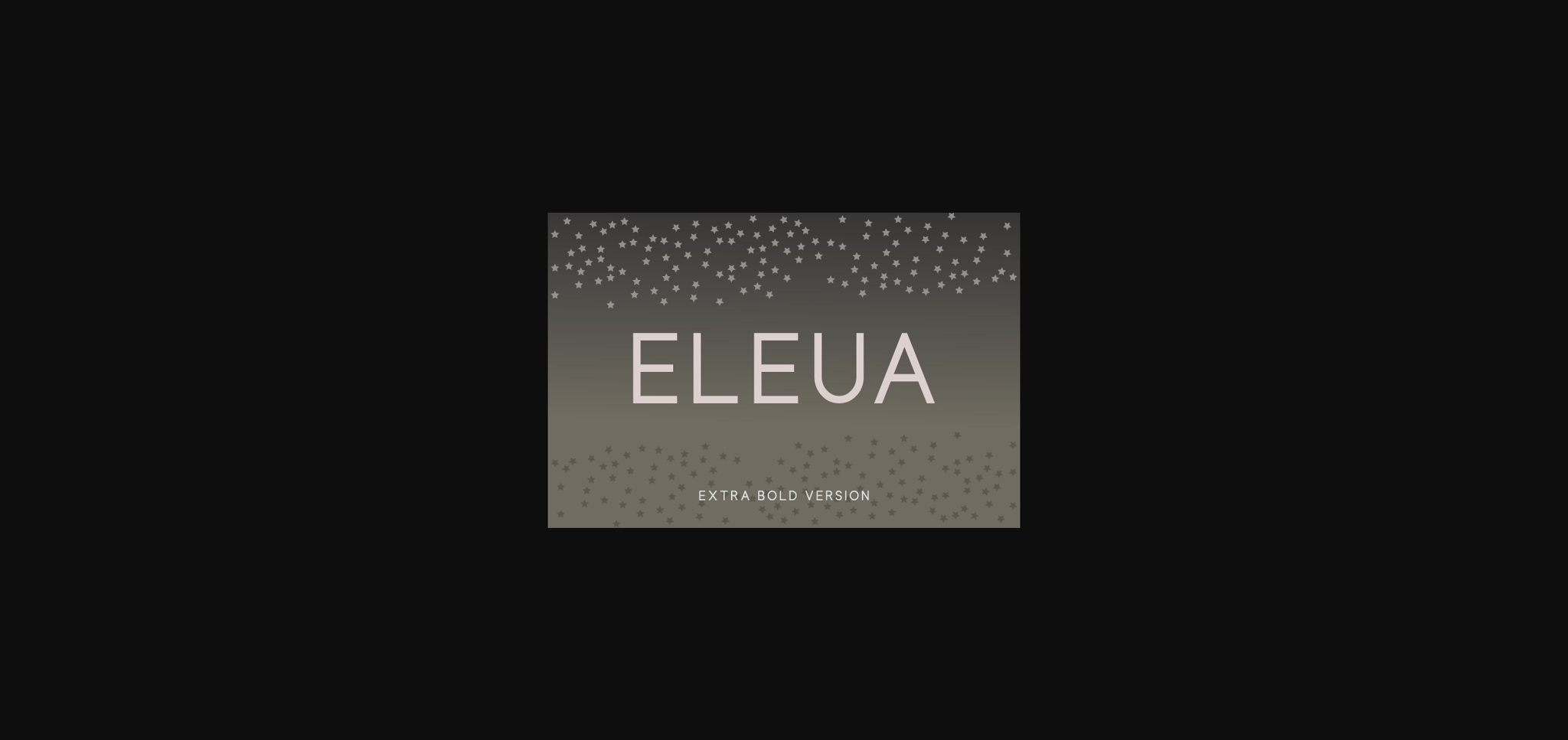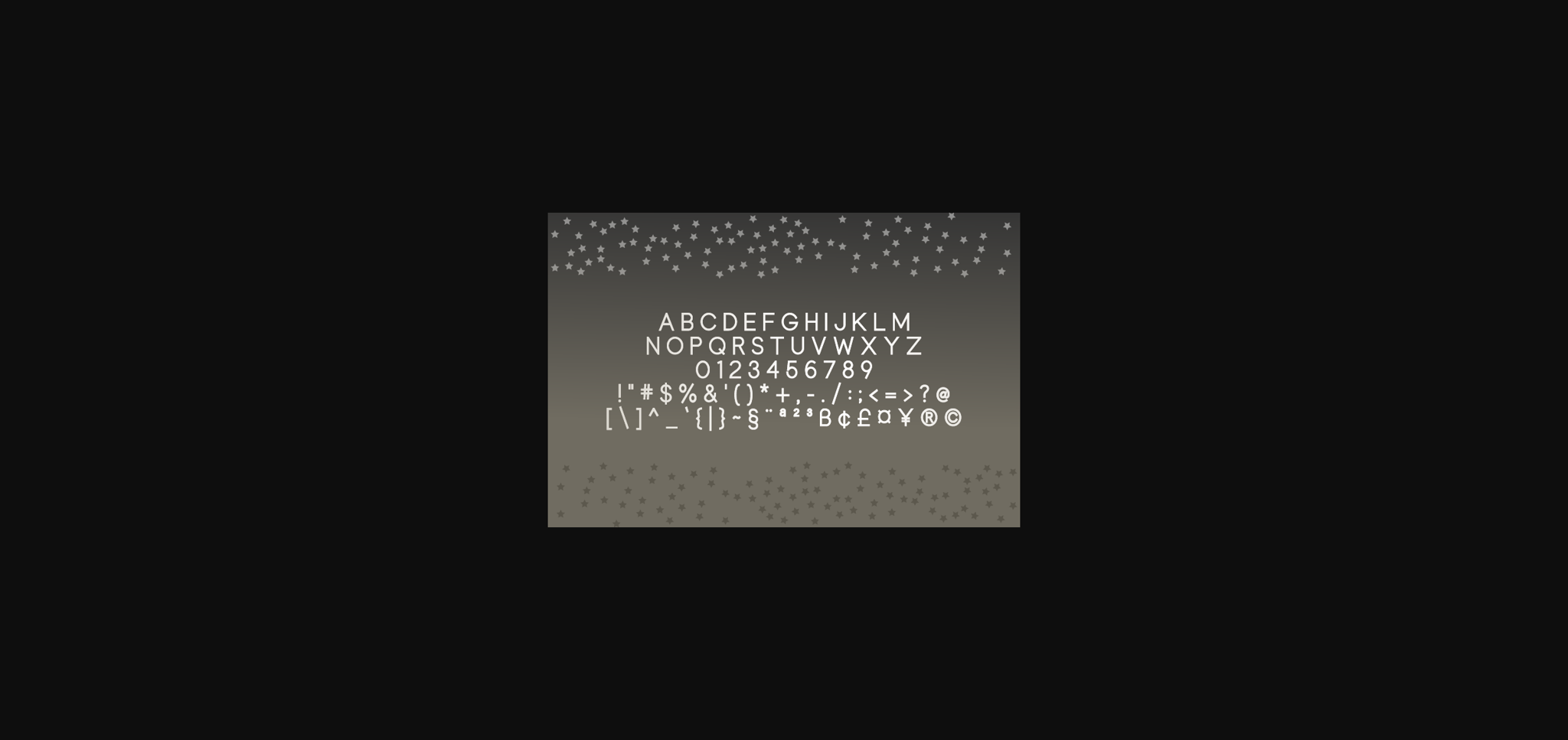
About Eleua Extra Bold Font
Eleua is a simple and casual sans serif font with an undeniably clean feel. With its neat and beautiful arrangement of letters, this typeface will look outstanding in both formal and non-formal designs.
Eleua is a sans serif font family with 10 weights that you can buy separately, according to the needs of your designs.